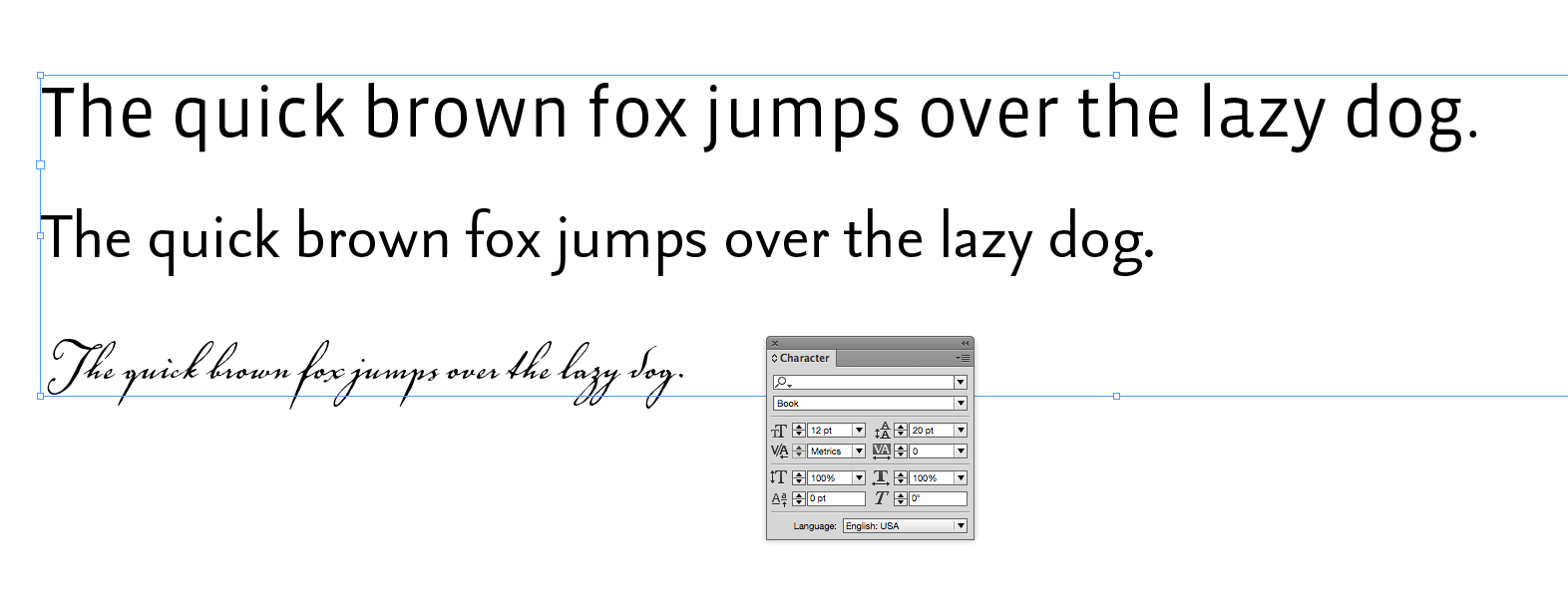
Font size
What font size should I use for A4 brochure?
1. font size for header
2. sub header
3. body
4. captions
This might be a good read for you—it's on selecting the best typeface.
The size depends on the typeface, but there are multiple variables involved. If you want to keep it simple, an easy starting point it to remember that for optimal readability, aim for 40–60 characters per line for your body text. From there you can increase the size/weight of the heads. There are no perfect answers here—setting type is an art and takes practice. A lot of us collect publications that we like, and then use them for inspiration when it is time to design our own publications. There are also some excellent books out there:
This is a good time to consider whether you want a quick answer or if you ready to invest some time understanding what's really involved in setting type.
I want to know those
This might be a good read for you—it's on selecting the best typeface.
The size depends on the typeface, but there are multiple variables involved. If you want to keep it simple, an easy starting point it to remember that for optimal readability, aim for 40–60 characters per line for your body text. From there you can increase the size/weight of the heads. There are no perfect answers here—setting type is an art and takes practice. A lot of us collect publications that we like, and then use them for inspiration when it is time to design our own publications. There are also some excellent books out there:
This is a good time to consider whether you want a quick answer or if you ready to invest some time understanding what's really involved in setting type.
Typical body copy is 9-12 points, but can be bigger for a brochure. Typically headings will be 4 points larger with each head. Your captions might be 2 points smaller.
This varies! But start here and see what looks good—also what fits.
what have you used in the past?
This illustrates Barbs point, three fonts set at 12pt: